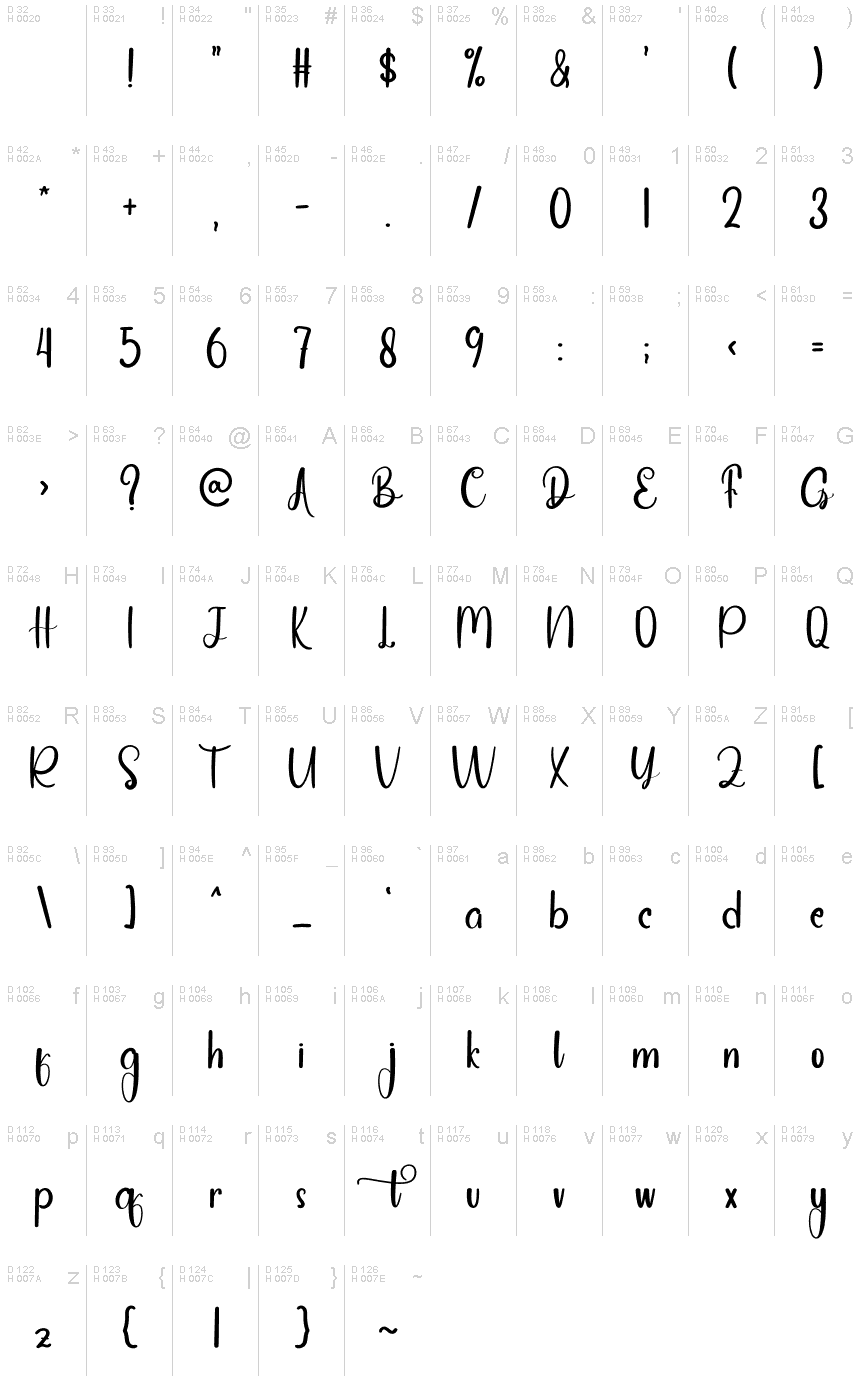
Good Night
Good Night, a creation by PiPi Creative, is a handwritten font distinguished by its semi-light weight and effortlessly flowing elegance. This font embodies a personal touch that adds warmth and charm to any project. Its gentle curves and slight slant evoke the intimacy of a handwritten letter, making it ideal for invitations, personalized branding, or heartfelt messages.
The aesthetic appeal of Good Night lies in its balance between readability and stylistic flair. Each character is crafted with care, ensuring that the typeface remains legible while retaining its unique character. The semi-light weight offers versatility—it's substantial enough for body text yet delicate enough for more decorative purposes.
Ideal for designs seeking to convey authenticity and grace, Good Night is well-suited for editorial projects, boutique branding, or any creative endeavor that benefits from a touch of human presence. Whether it's adding sophistication to your social media graphics or creating an inviting atmosphere on websites and packaging, Good Night stands as an elegant choice that bridges the gap between classic handwriting and contemporary design sensibilities.